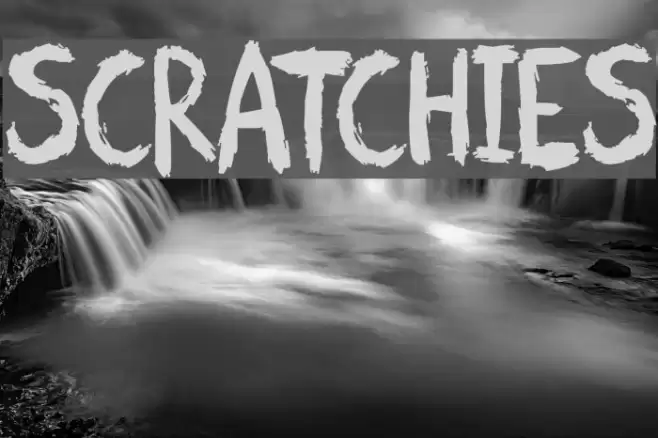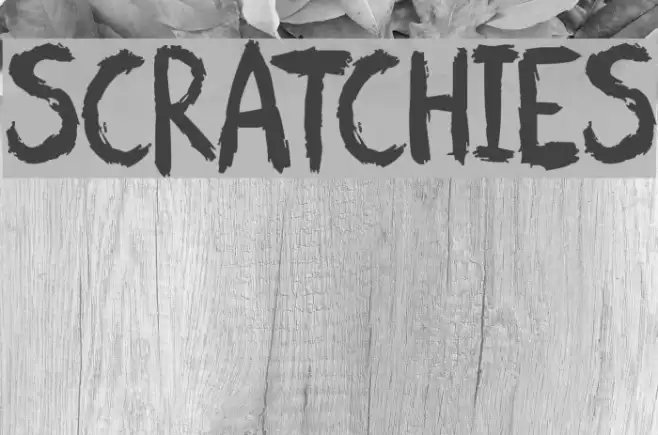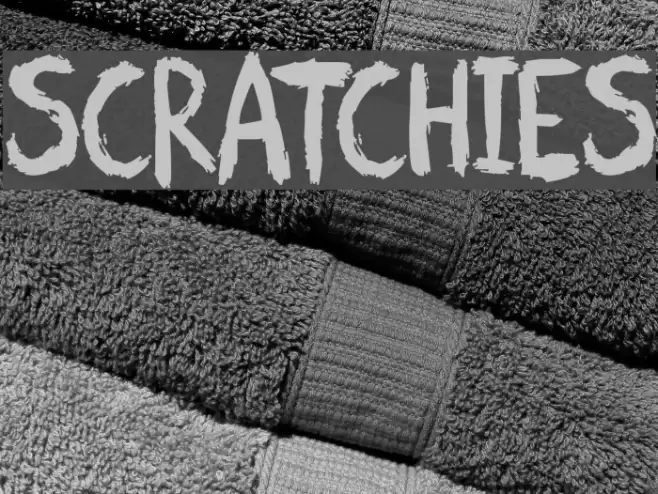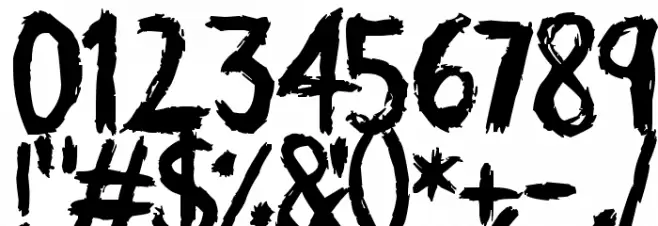
Scratchies Font
Scratchies Description
This font features a bold, hand-drawn style with rough, jagged edges that give it a raw and energetic appearance. The letters are irregular and dynamic, resembling brush strokes or scratches, which adds a sense of movement and intensity. The uppercase and lowercase letters maintain a consistent style, with each character exhibiting unique variations that enhance the font's organic feel. Numbers and special characters follow the same aesthetic, ensuring a cohesive look across all elements. This font's distinctive and edgy design makes it ideal for projects that require a bold and unconventional statement.
A bold, hand-drawn font with rough, jagged edges and an energetic, brush-like appearance from Uncategorized fonts.